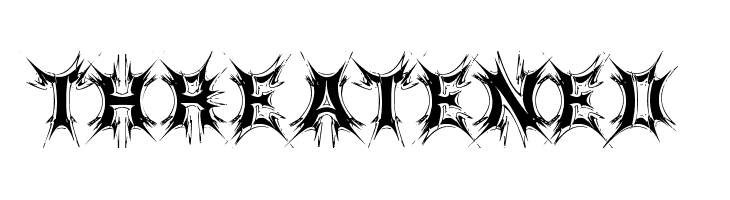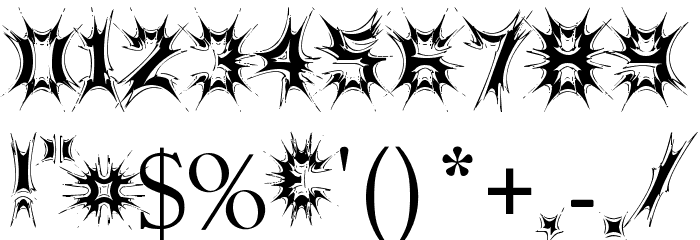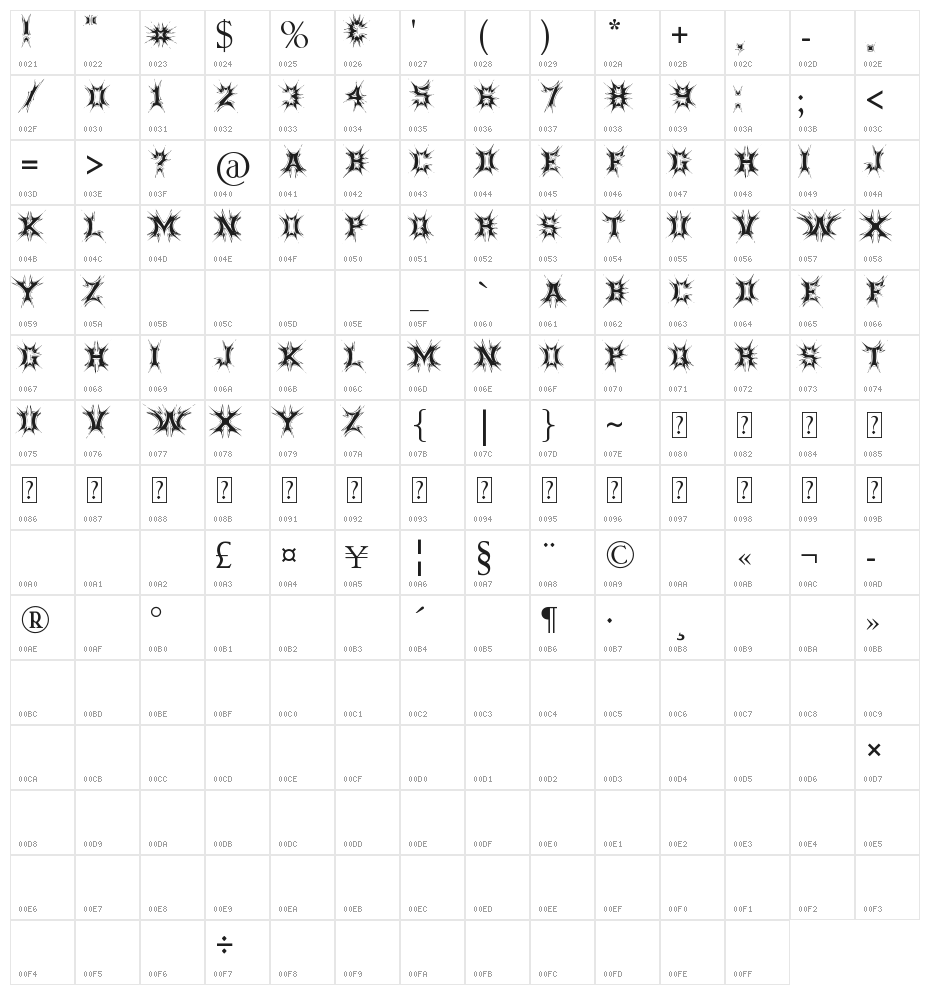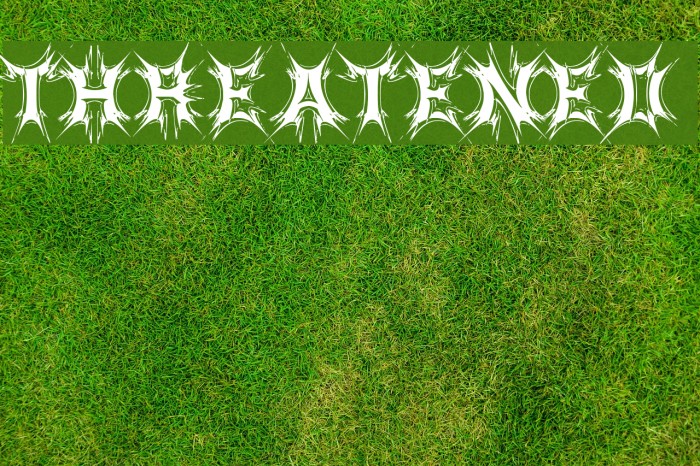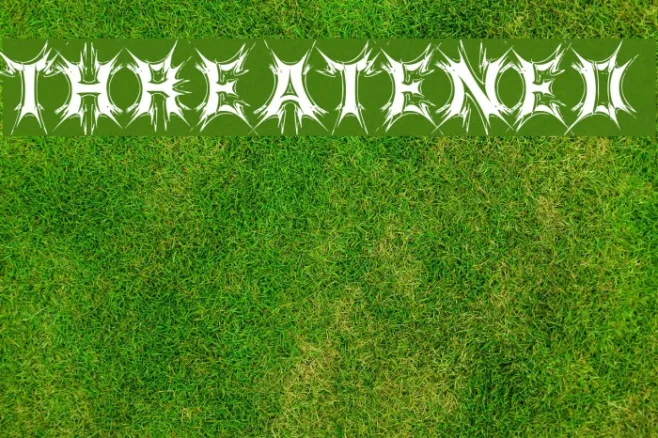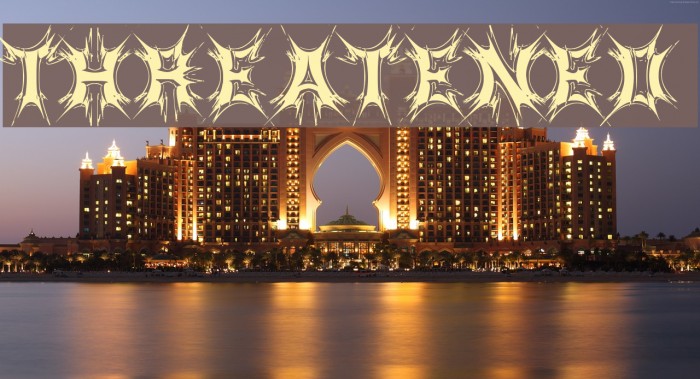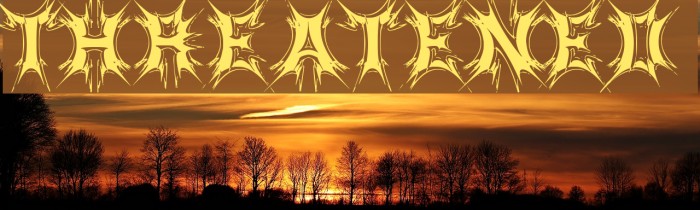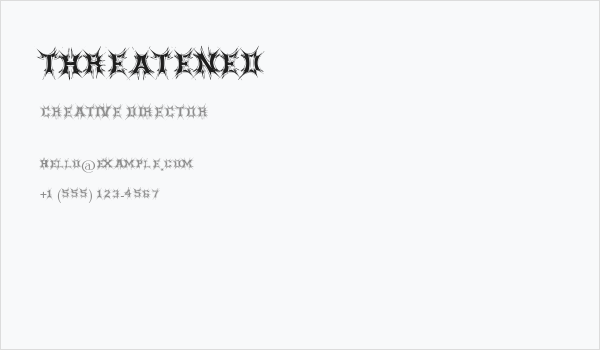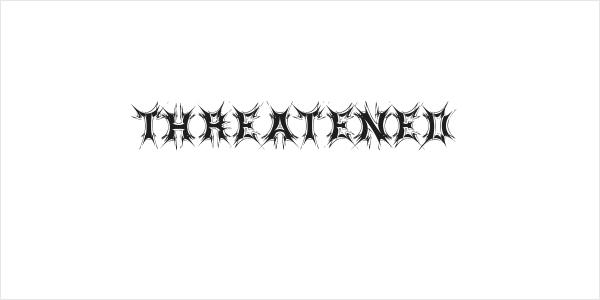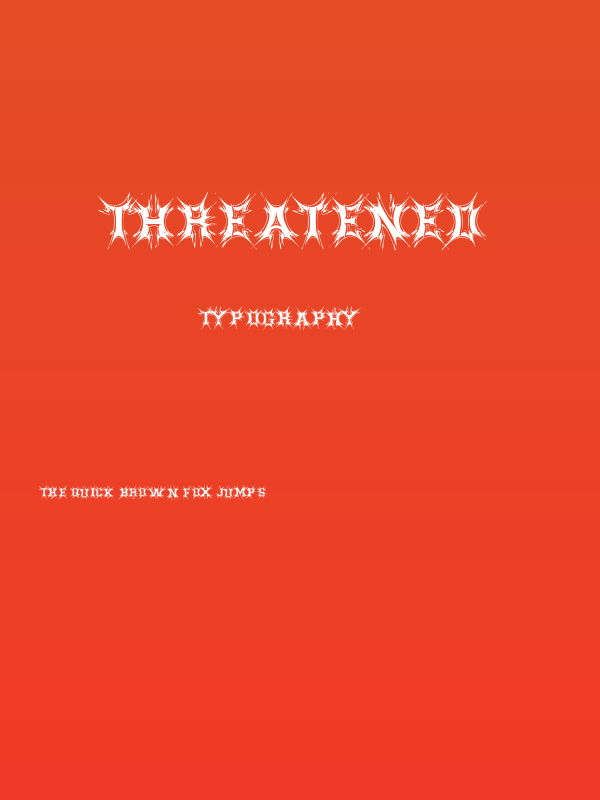
Threatened Font
Threatened Description
This font features an aggressive and spiky design, reminiscent of gothic or heavy metal aesthetics. The characters are adorned with sharp, pointed edges and intricate detailing, giving them a fierce and dynamic appearance. The bold strokes and high contrast between thick and thin lines enhance its dramatic and eye-catching style. The font's unique and decorative elements make it stand out, suitable for projects that require a strong visual impact. Its elaborate design may not be ideal for body text but excels in creating striking headlines or logos.
| Overall Style | Gothic, Decorative |
| Proposed Projects | Ideal for band logos, album covers, posters, or any project needing a bold, edgy look. |